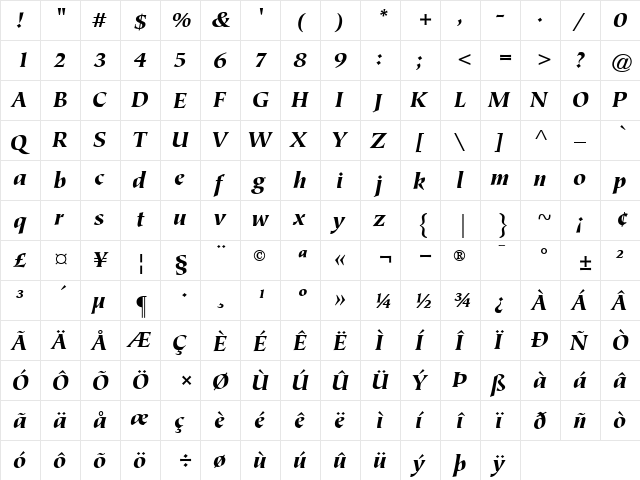
ITCTiepolo-Black BlackItalic Font Preview
ITCTiepolo-Black BlackItalic
ITCTiepolo-Black BlackItalic Font Details
| Style | BlackItalic |
Design Context for ITCTiepolo-Black Typeface
ITCTiepolo-Black takes a measured approach to typography — its balanced proportions and neutral character make it a reliable workhorse for both digital and print work. Its italic angle brings a sense of urgency and motion to the letterforms.